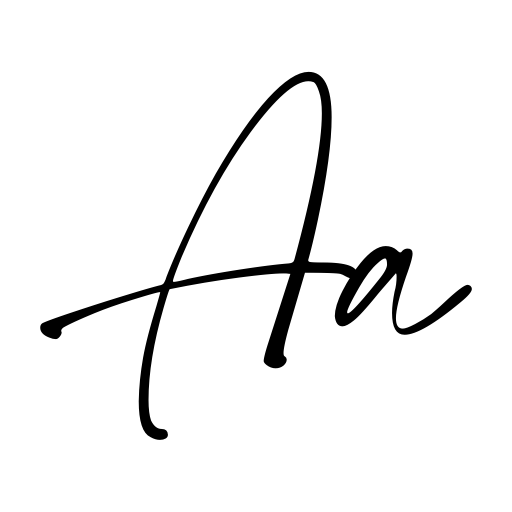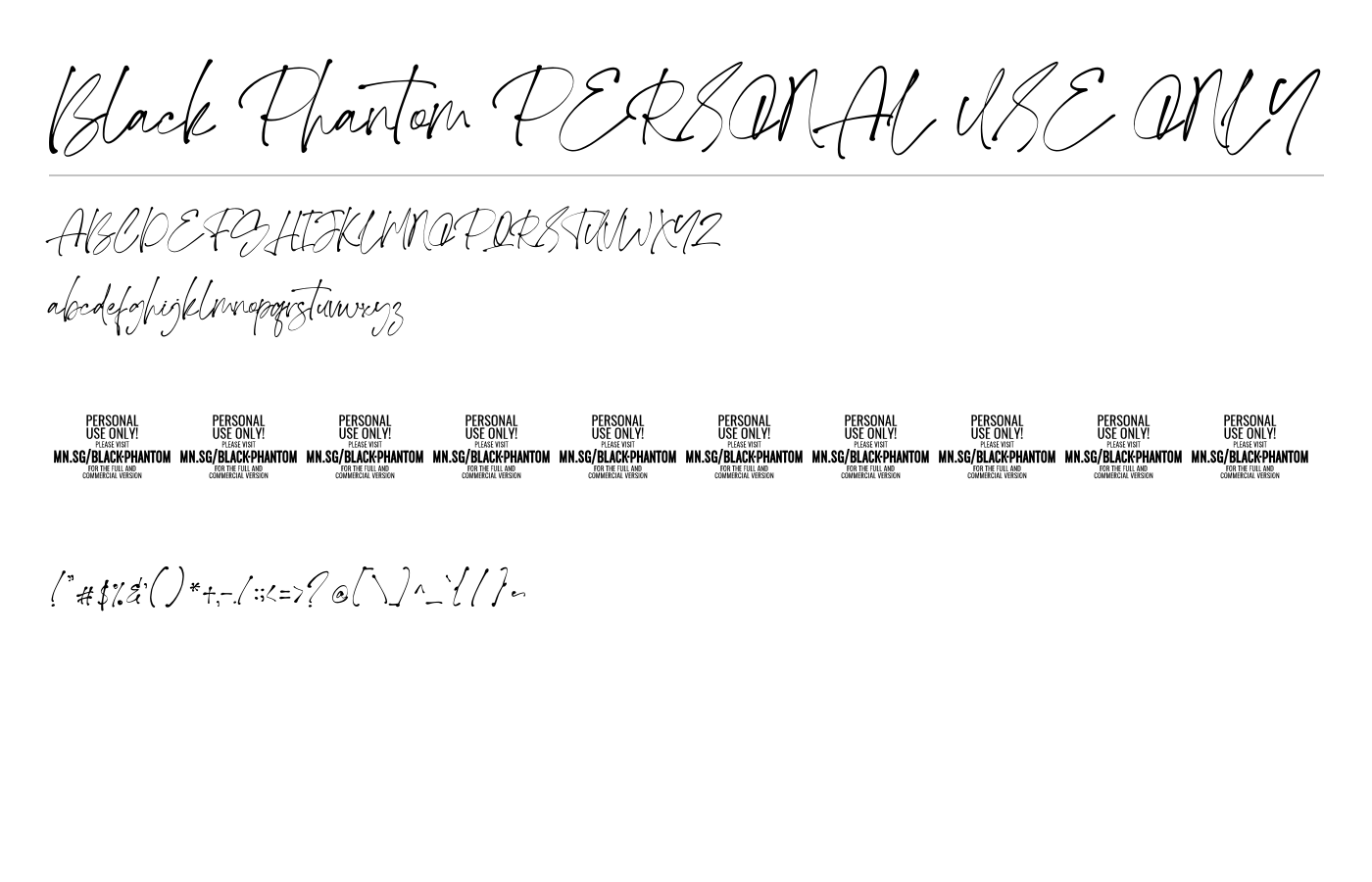
Black Phantom is an elegant, thin script font with a natural, hand-drawn look that combines delicate strokes and airy spacing to create a graceful, artistic feel. Its tall, flowing letterforms and subtle variations give it a personal, refined style perfect for creative projects, invitations, and branding that aims for a sophisticated yet approachable impression. This font shines best in large sizes where its fine details and distinctive character can truly stand out.
Black Phantom PERSONAL USE ONLY Font
About Black Phantom PERSONAL USE ONLY Font